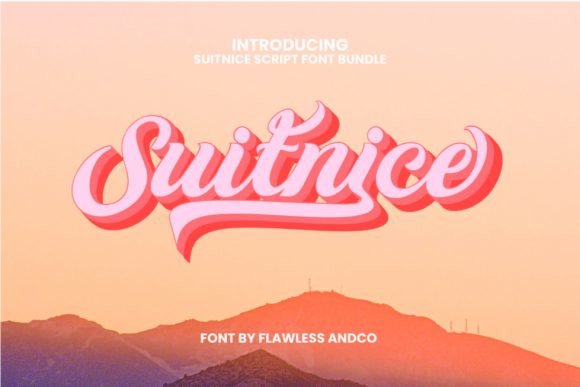
Step into the realm of artistic expression with Suitnice Font, a script font born from the fusion of retro and groovy aesthetics. Each letter dances across the page, exuding a captivating charm that is sure to leave a lasting impression. Experience the allure of yesteryear while embracing the vibrancy of the present with this remarkable font.
Immerse yourself in the beauty of Suitnice Font, meticulously crafted by the talented team at Flawless And Co. Their dedication to detail shines through in every curve and stroke, ensuring that this font possesses an unmatched level of sophistication. Discover a world of creative possibilities as you unleash your imagination, transforming ordinary designs into masterpieces.
With Suitnice Font, you hold the key to unlocking a higher realm of creativity. Whether you're designing an art magazine, crafting a captivating logo, or creating social media posts that demand attention, this font is your perfect partner. Its versatility knows no bounds, allowing you to effortlessly elevate your designs and leave a lasting impact on your audience.
Harness the power of Suitnice Font and elevate your artistic endeavors to new heights. Its PUA encoding grants you effortless access to a treasure trove of glyphs and ligatures, empowering you to add intricate details and flourishes that will make your designs truly shine. Experience the ease of use and endless possibilities that await you with this remarkable font.